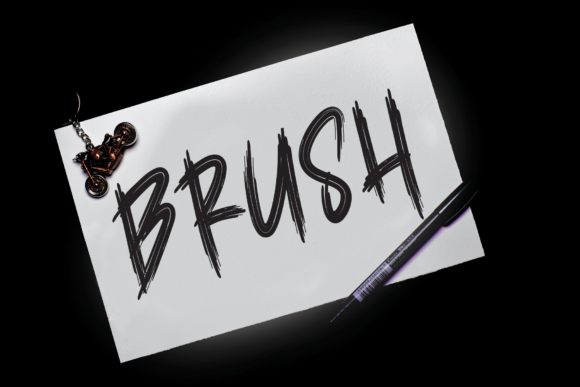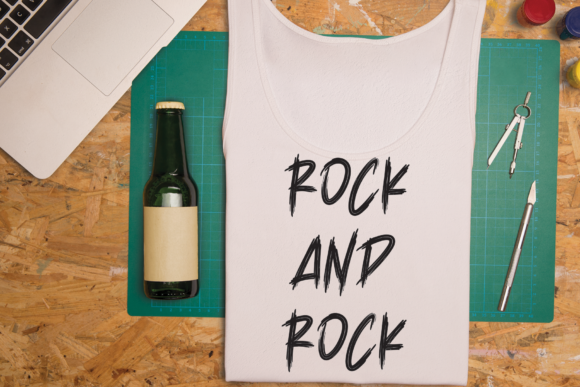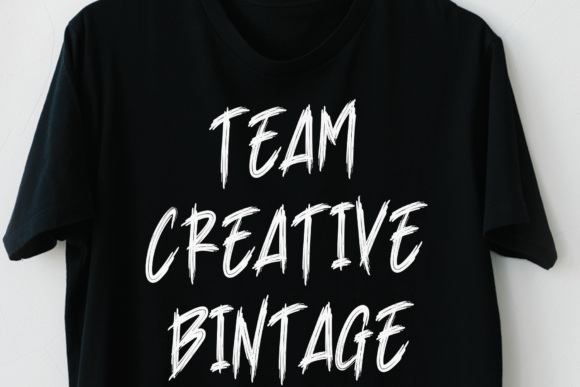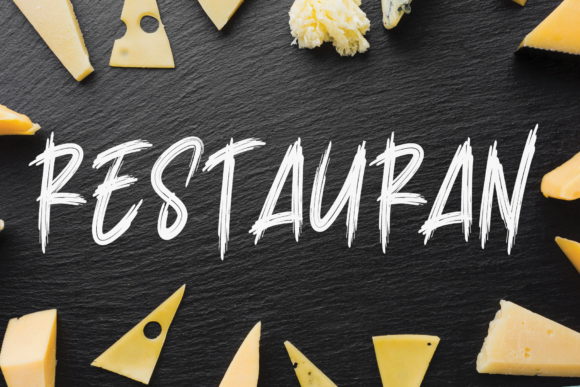
Finding Your Catch: The Allure of Fishing Paradise Font
There’s something magical about sitting at your desk, staring at a blank canvas, and waiting for the perfect idea to strike. The blank page can be intimidating, but it’s also a blank slate – full of possibilities waiting to be explored. For designers, this moment is all about finding the right tool to help bring their vision to life.
Enter Fishing Paradise Font, a cool, brushed and street styled display font that’s ready to reel in the attention. This versatile font is designed to elevate any creation, whether you’re working on a bold marketing campaign, a sleek logo, or a stylish social media graphic.
With Fishing Paradise Font in your arsenal, you’ll have the power to make your designs stand out from the crowd. Its unique blend of style and sophistication makes it a valuable asset for any designer looking to add some flair to their work.
Fishing Paradise Font Key Features
- Font Family: Fishing Paradise Font is a unique, hand-drawn font designed to evoke a sense of serenity and connection to nature.
- Character Count: The font includes 250+ characters, including uppercase and lowercase letters, numbers, punctuation marks, and special characters.
- Unique Characteristics: Features a distinctive, whimsical style with flowing lines and subtle texture, making it perfect for designs that require a touch of elegance and sophistication.
Fishing Paradise Font Review
I recently had the chance to work with the “Fishing Paradise Font”, and I must say it’s an interesting font. Here are some of its key features.
- The font’s playful and casual feel makes it perfect for projects that need a laid-back vibe.
- The font’s unique letterforms and subtle curves add a touch of whimsy to any design.
- The font is highly legible, even at small font sizes, making it suitable for a wide range of applications.
- The font may not be the best choice for formal or professional projects, as its playful feel may not be taken seriously.
- The font’s unique letterforms may not be easily readable in certain contexts, such as at very small font sizes or in low-contrast backgrounds.
- The font’s limited character set may make it difficult to use for languages that require a wide range of characters.
Overall, I think the “Fishing Paradise Font” is a fun and creative option for designers looking to add a touch of personality to their projects. While it may not be suitable for every project, it’s a great choice for casual or creative applications.
For optimal results, use the Fishing Paradise Font in conjunction with a bold or italic style to add emphasis.
Use the font for headings, titles, or labels to create a cohesive design.
The Fishing Paradise Font is suitable for:
• Designing outdoor-themed projects, such as fishing or boating logos.
• Creating invitations or flyers for outdoor events.
• Developing branding materials for outdoor-related businesses.